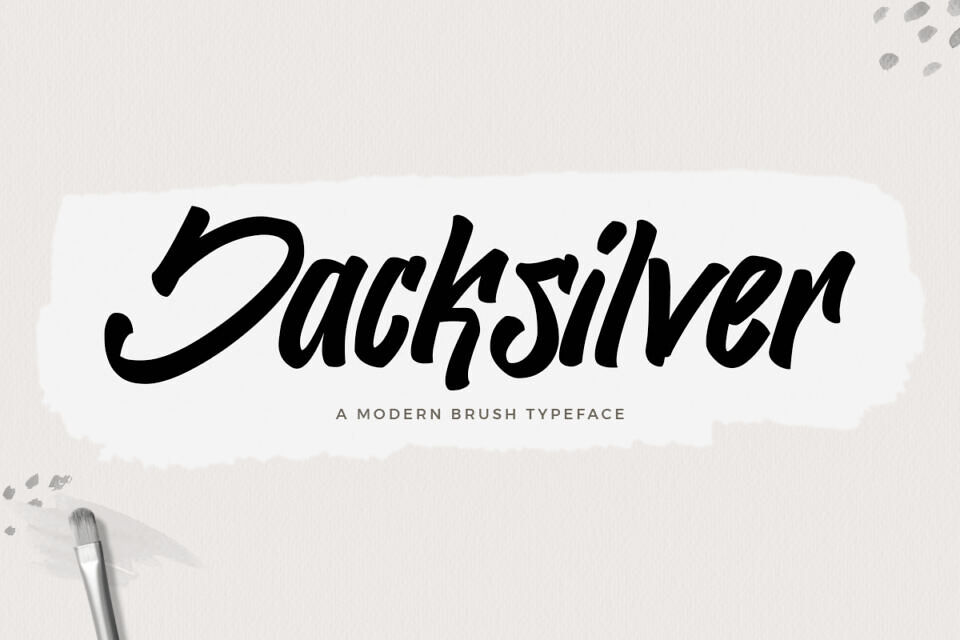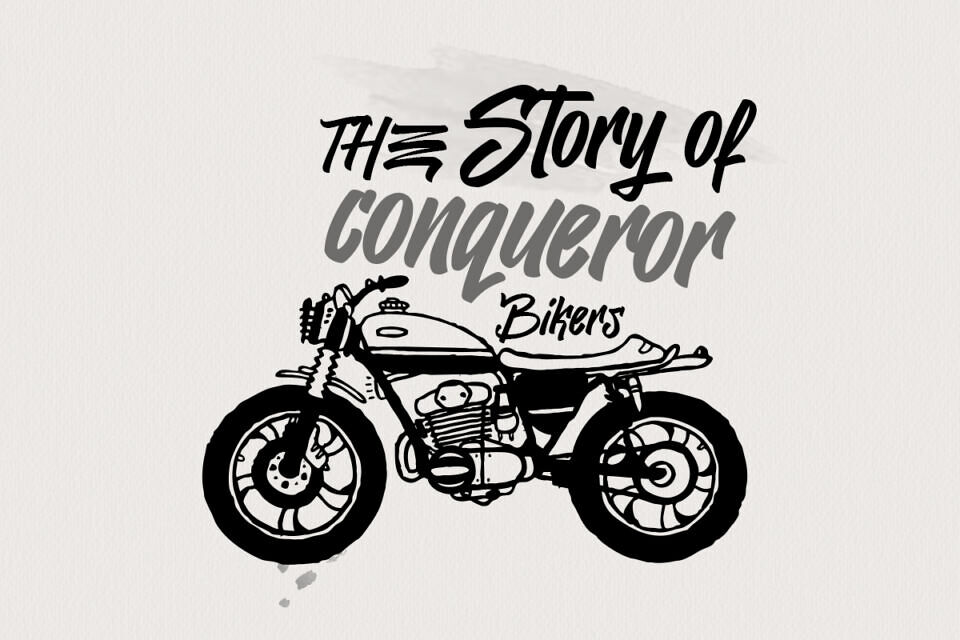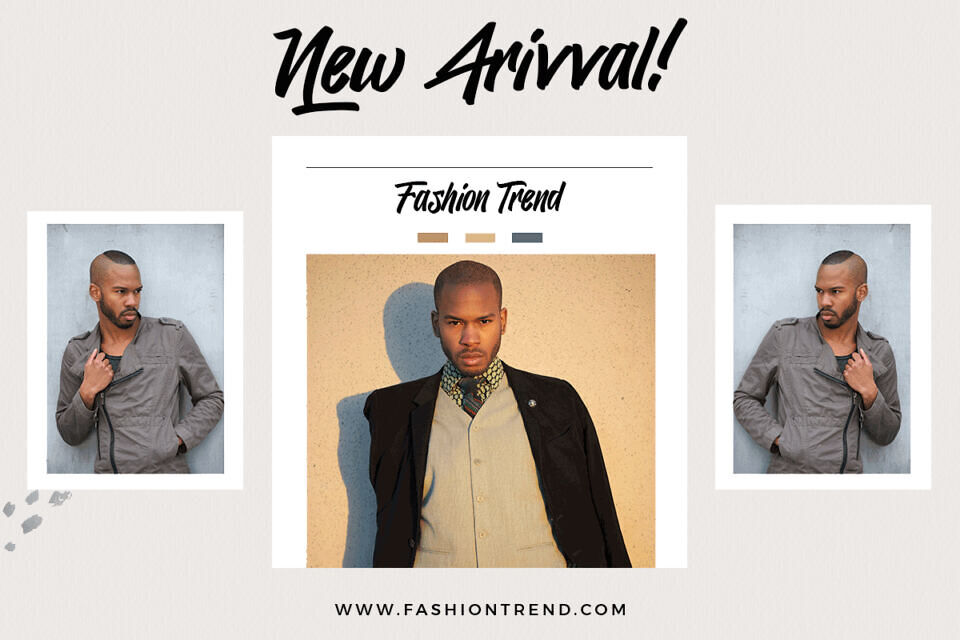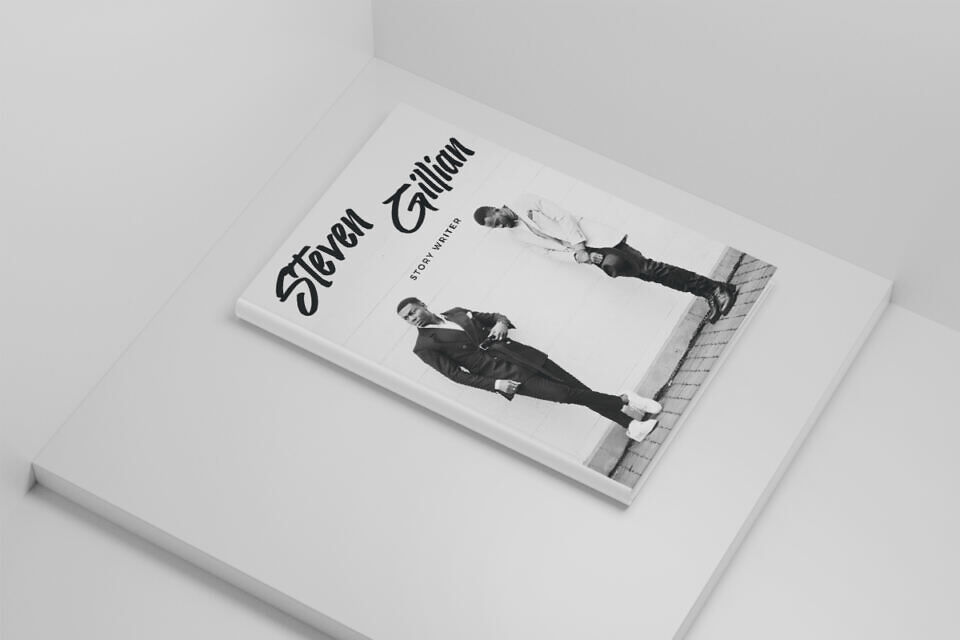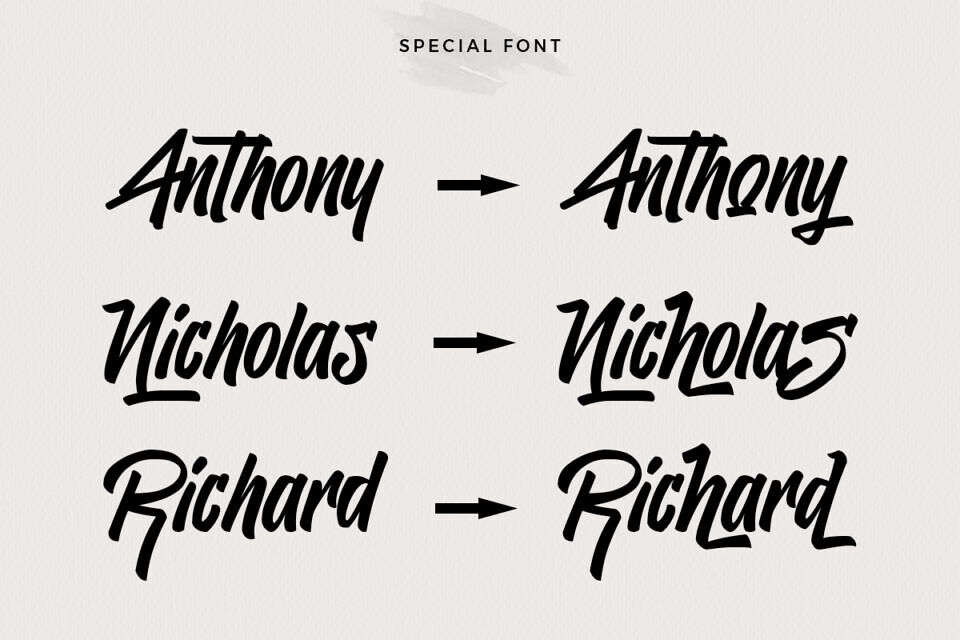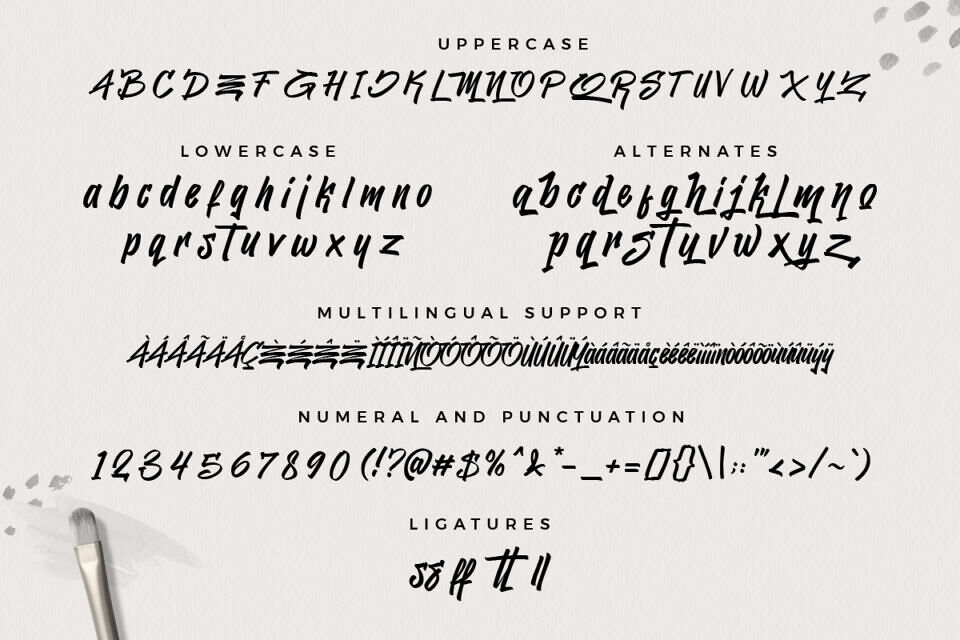
Jacksilver font is a modern brush font with a graffiti-inspired aesthetic. Its handmade style features rough edges and scratches, giving it a unique, artistic look.
This font is perfect for designing street-inspired art, such as murals, skateboards, or clothing items. It’s also ideal for creating edgy, metropolitan-themed artworks, making it a great addition to any collection of modern, urban-inspired designs.